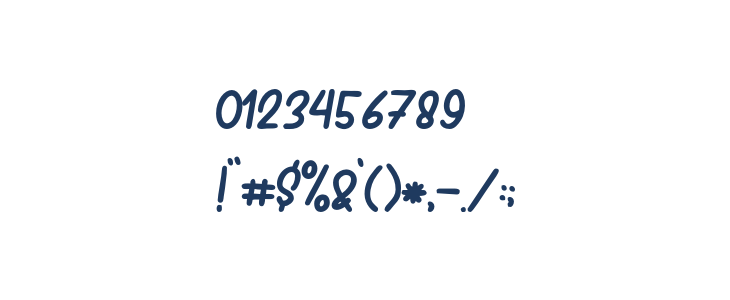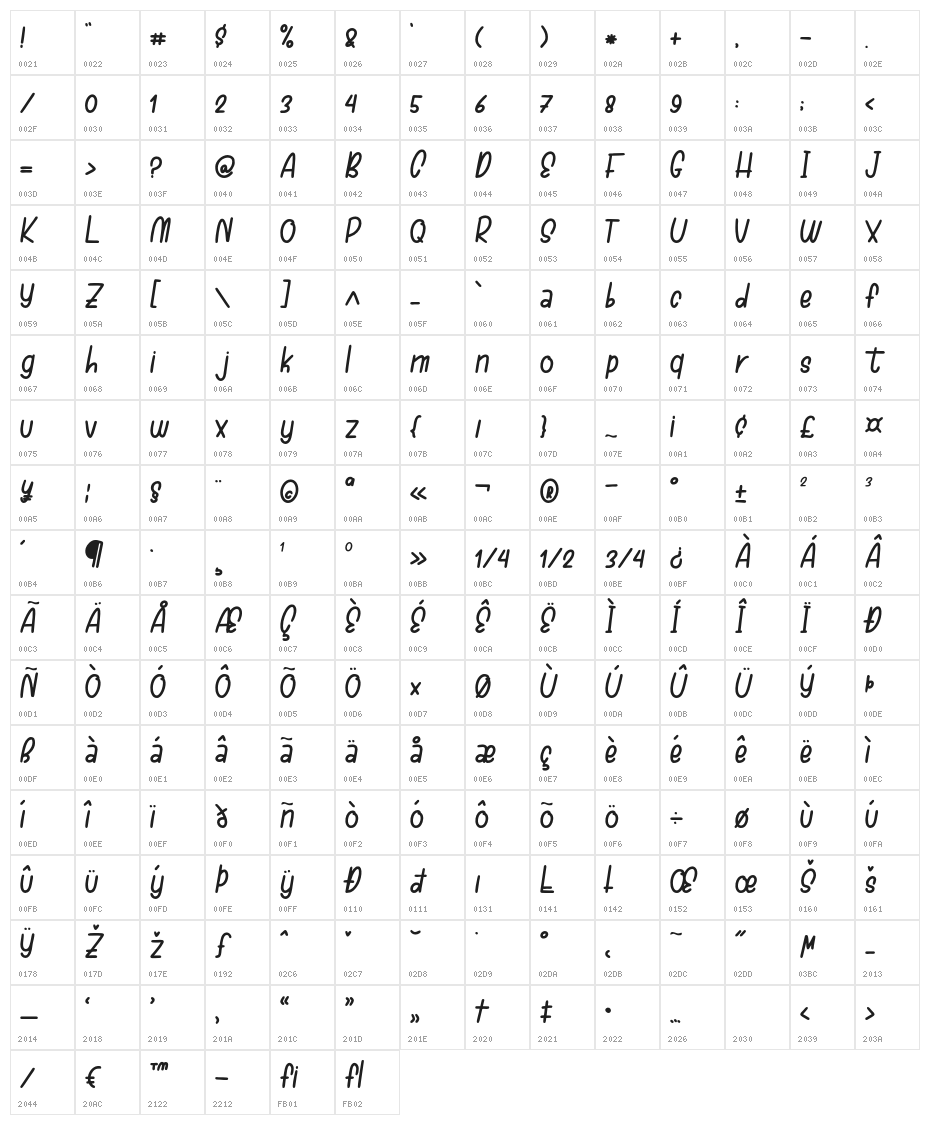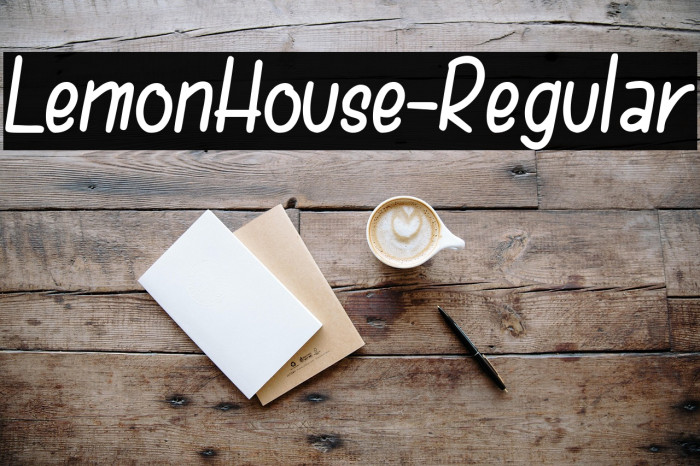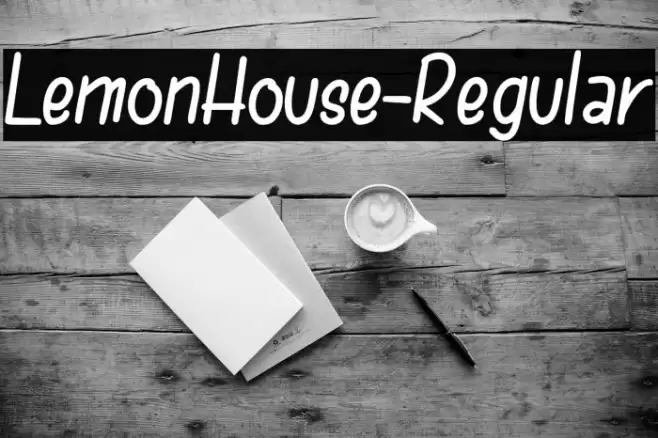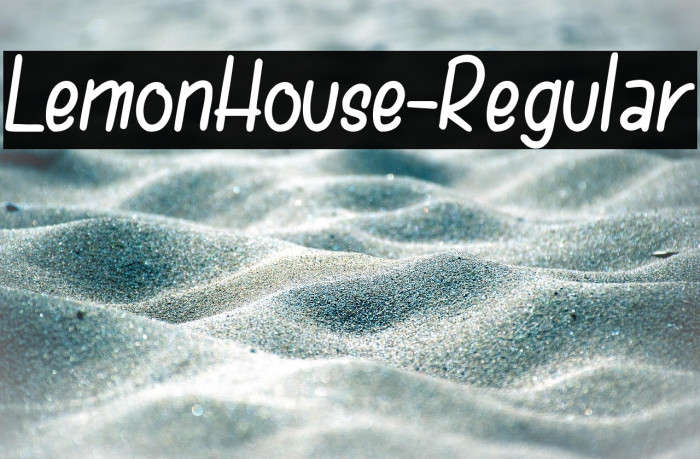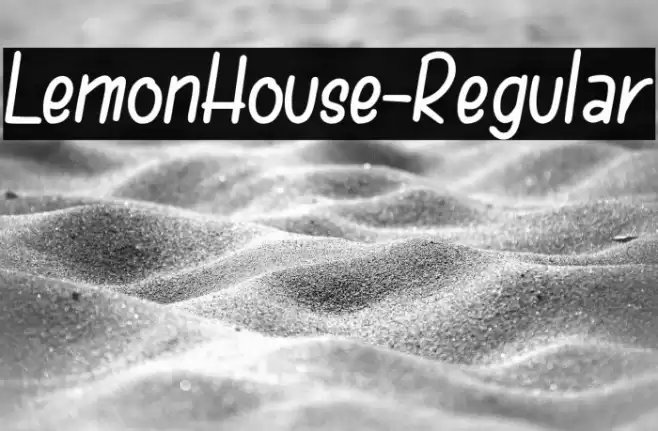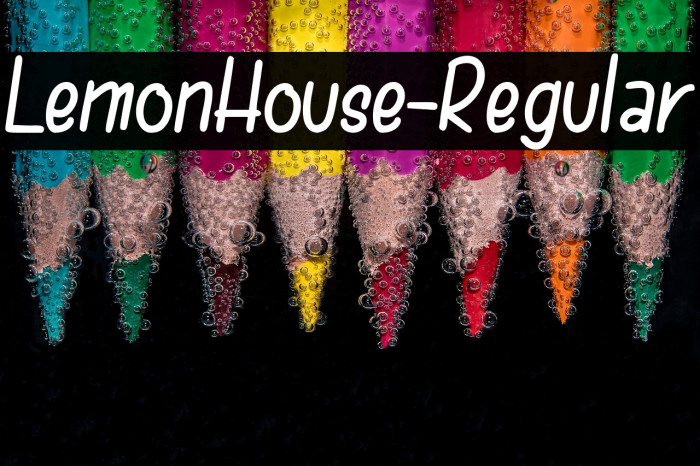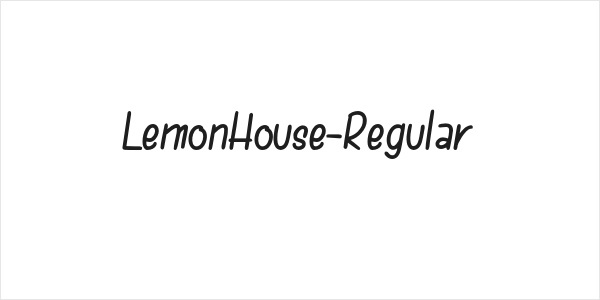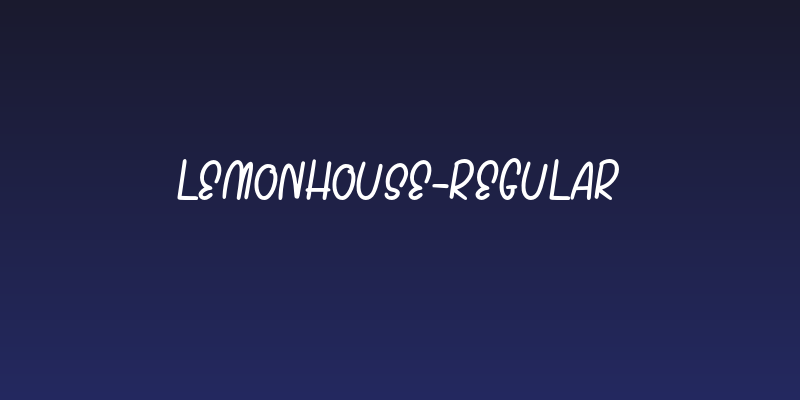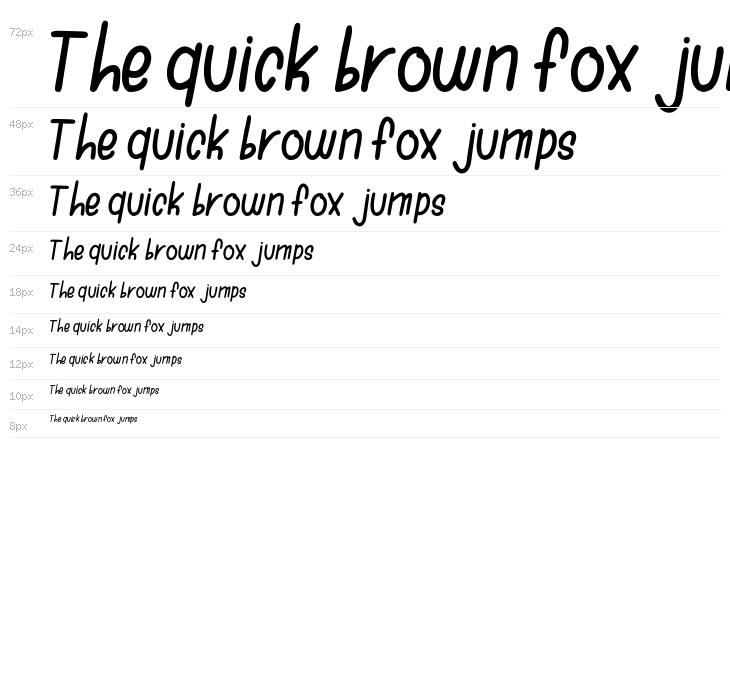
LemonHouse-Regular Font
LemonHouse-Regular Description
This font features a playful and casual handwritten style, characterized by its smooth curves and slightly slanted letters. The strokes are consistent in thickness, giving it a uniform appearance while maintaining a friendly and approachable vibe. The uppercase letters are bold and prominent, while the lowercase letters are slightly more relaxed, adding to the overall informal feel. The numerals are clear and easy to read, matching the style of the letters. Special characters are well-integrated, maintaining the font's cohesive look. This font is versatile, suitable for projects that require a personal touch.